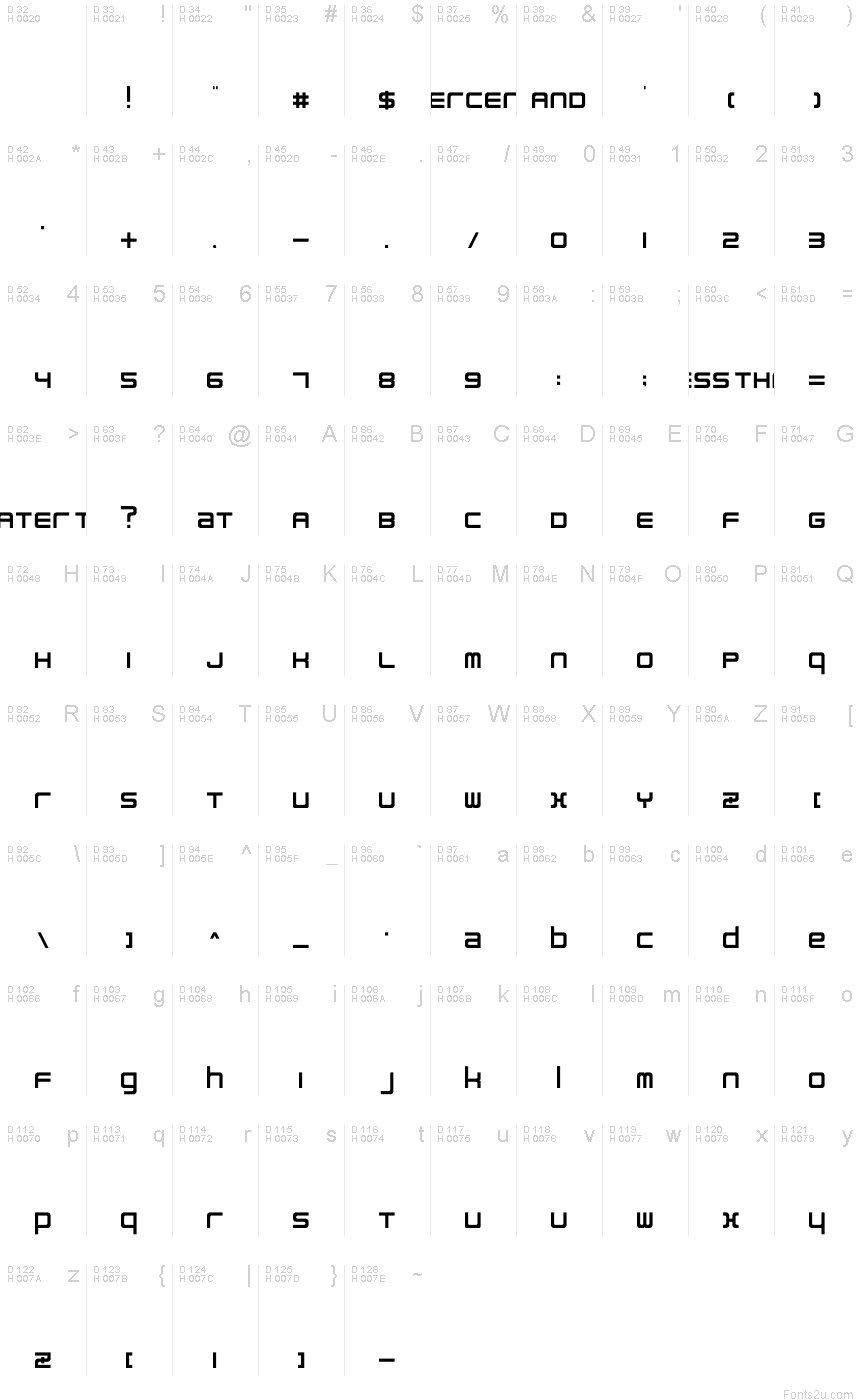
HTC HoProduction by kingho329 of FSI FontShop International GmbH is a free futuristic display font built from broad, uniform strokes and squared geometric forms. Rounded outer corners soften the rigid construction.
A technology event is its clearest setting, where the open joins and modular letter shapes can echo interface graphics. It can also suit software branding, game titles, and electronic music posters. Across these uses, the segmented construction points directly to science fiction, digital hardware, machine-made imagery, and arcade culture.